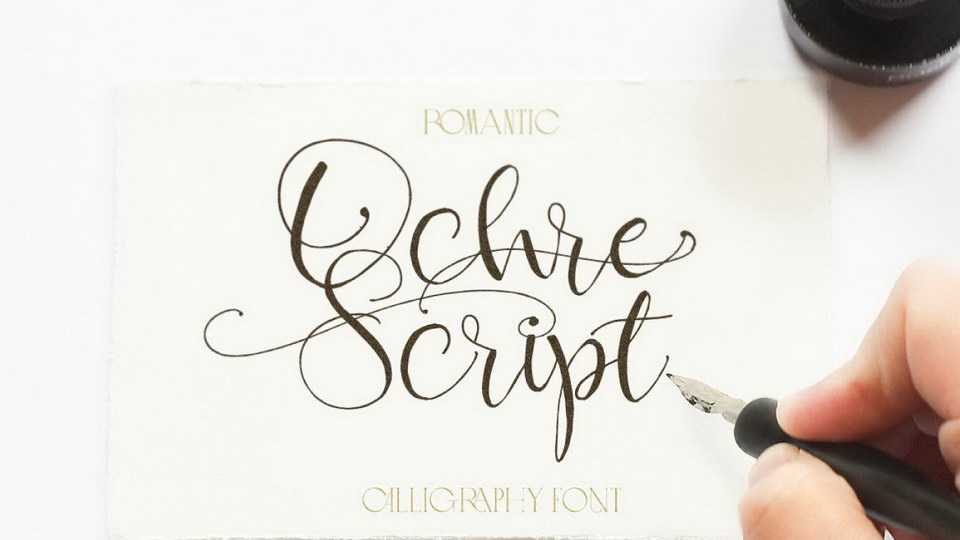
Download Ochre font, a beautiful romantic calligraphy script with a unique hand drawn flow. Ochre font will add a personal touch of elegance to any design project.